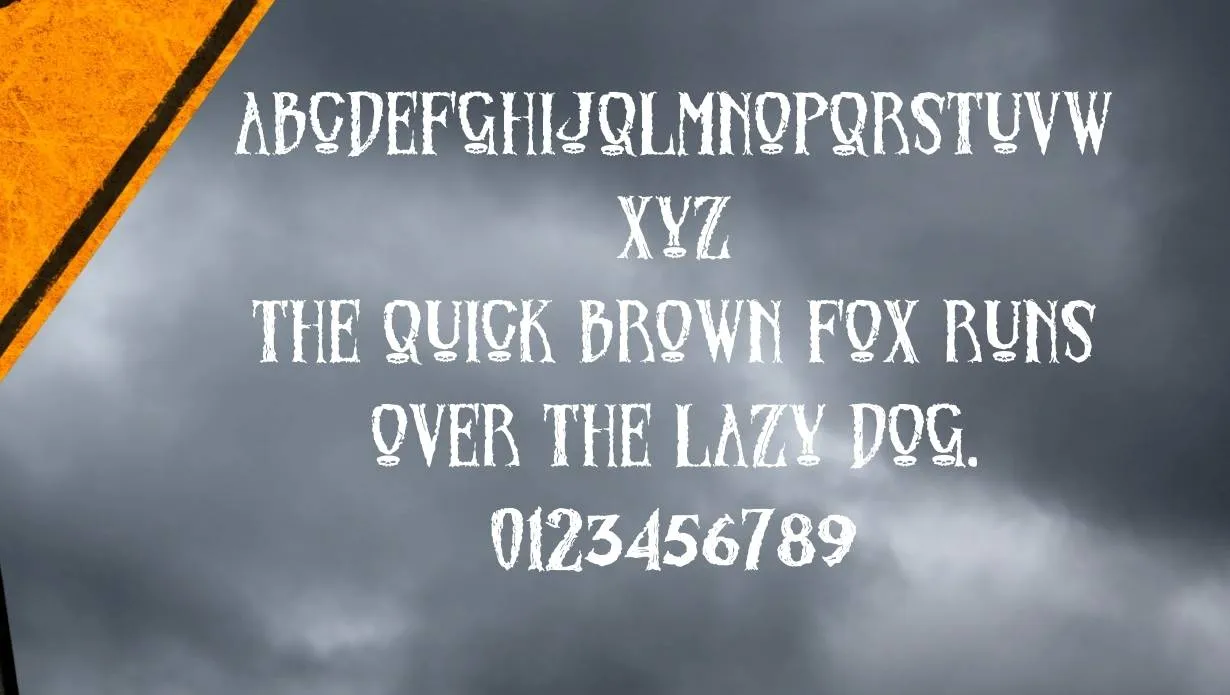
Here we are presenting new latest and most eye-catching typeface which goes by the name of Zombified Font. This is scary-looking font has an attractive look to it. If something is written in this font you can’t ignore it because of its unique attractive design.
This scary-looking font style design has been created by Sinister Fonts. The font style design belongs to the category of the fancy typeface. This unique attractive font style design can be used for any kind of design. This elegant font was released to the public in 2010.
Zombified Font Family
| Name | Zombified Font |
| Designer | Sinister Fonts |